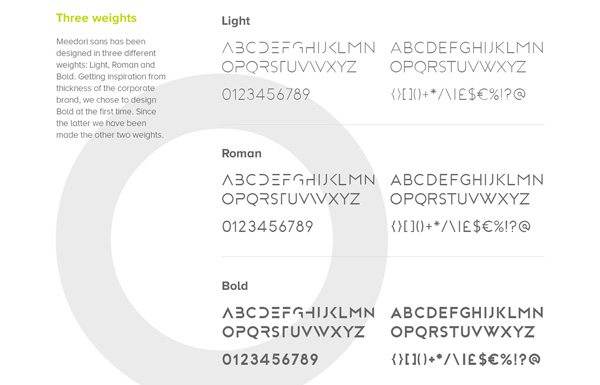
Free Font Of The Day #168 – Meedori Sans
Meedori Sans
The font is a geometric font because its construction is inspired by elementary shape of geometry as circle, square, and triangle. It is created with the idea to transfer simplicity, linearity, and modernism. Meedorisans has been designed in three different weights: Light, Roman, and Bold. Designed by Meedori Studio.